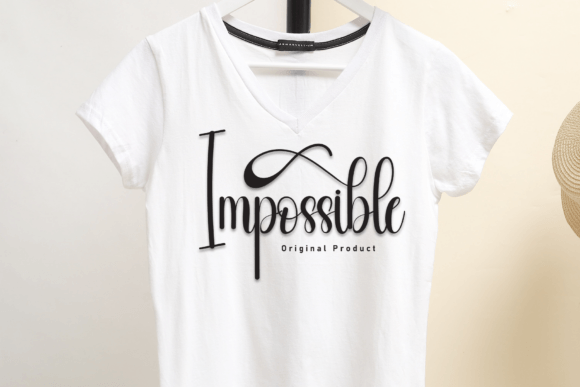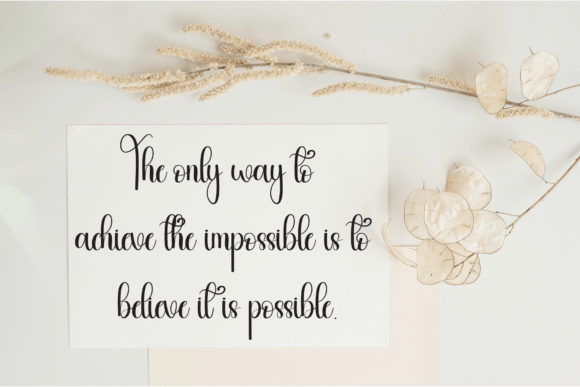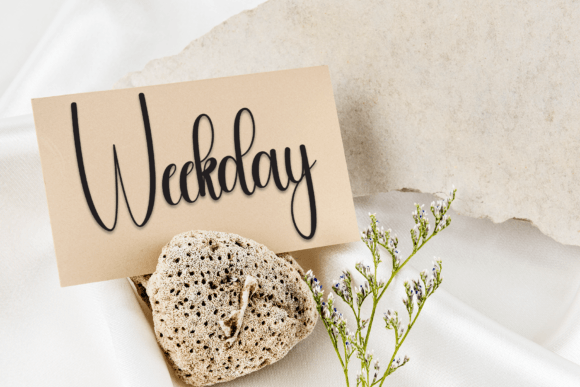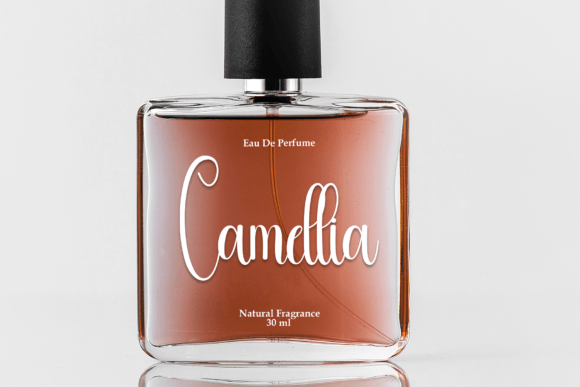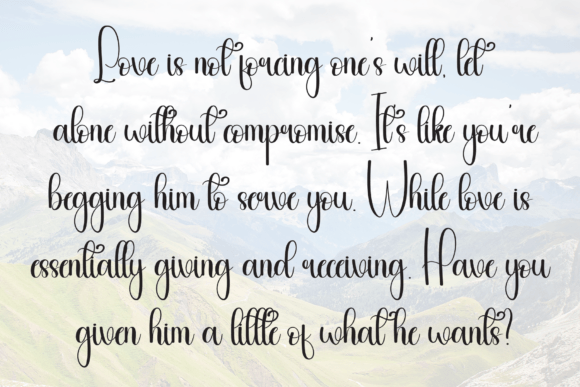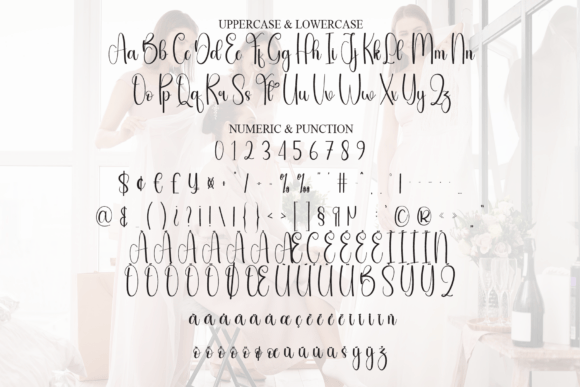
Do you remember the moment when a client asked you to create a custom wedding invitation that captured the essence of their special day? The pressure to convey love, joy, and celebration through a single design is palpable. You know that the right font can make all the difference in conveying the emotions and tone of the event.
Enter the Bridesmaid Font, a charming handwritten display font that brings a playful and warm-hearted touch to any design. Crafted to add a dash of whimsy and personality, this font is perfect for wedding invitations, cards, and any project seeking a touch of elegance and fun. For designers, the Bridesmaid Font is a valuable asset, offering a unique and creative way to express themselves and bring their vision to life.
Bridesmaid Font Key Features
- Font Family: Bridesmaid Script
- Unique Characteristics: This script font features elegant, flowing connections between letters, perfect for wedding invitations, bridal showers, and other special occasions
Bridesmaid Font Review
I recently had the chance to work with the Bridesmaid Font, and I must say it’s a unique addition to any wedding design project. ✨ One of the things that stood out to me was its elegant and feminine feel, making it perfect for wedding invitations, programs, and other related materials. The font’s flourishes and curvaceous lines give it a touch of sophistication and romance, which is exactly what you’d want for a wedding design.
However, there are a few limitations to keep in mind. ⚠️ For one, the font may not be as readable at smaller sizes, which could be a concern if you’re planning to use it for body text. Additionally, the font’s complexity may make it difficult to pair with other fonts, so you may need to be selective with your font combinations.
Here are some pros and cons to consider:
- ✨ Elegant and feminine design
- ✨ Perfect for wedding invitations and other related materials
- ⚠️ May not be readable at smaller sizes
- ⚠️ Can be challenging to pair with other fonts
Overall, the Bridesmaid Font is a beautiful addition to any wedding design project, but it’s essential to be aware of its limitations. With careful use and selection, this font can help create stunning and memorable wedding designs.
Alternatives to Bridesmaid Font
Great Vibes is a modern script font that features elegant and flowing lines. It’s perfect for creating a whimsical and romantic atmosphere in wedding invitations, stationery, and other design projects. Great Vibes is more refined and sophisticated compared to Bridesmaid Font, making it a great choice for high-end or vintage-inspired designs.
Carolyna Pro is a beautiful, elegant script font that’s perfect for creating a classic and sophisticated look. It’s ideal for wedding invitations, stationery, and other design projects where a touch of luxury is desired. Carolyna Pro is more elegant and refined than Bridesmaid Font, making it a great choice for formal events or high-end weddings.
Pacifico is a beautiful, elegant script font that’s perfect for creating a relaxed and beachy vibe. It’s ideal for wedding invitations, stationery, and other design projects where a touch of elegance and sophistication is desired. Pacifico is more casual and laid-back compared to Bridesmaid Font, making it a great choice for outdoor weddings or beach-themed events.